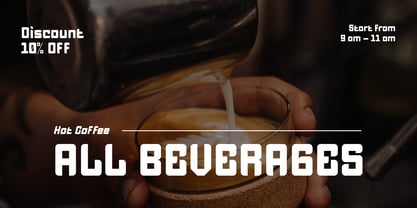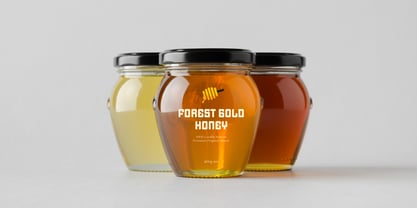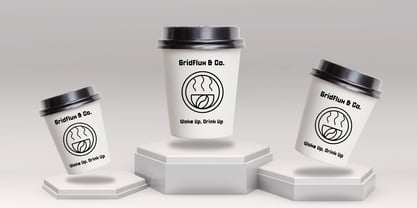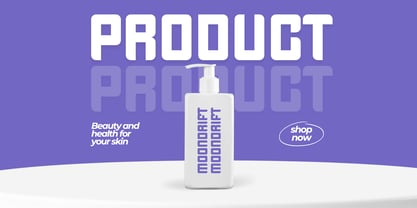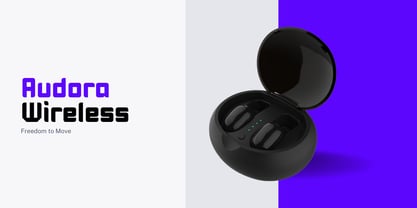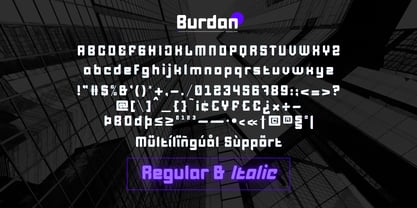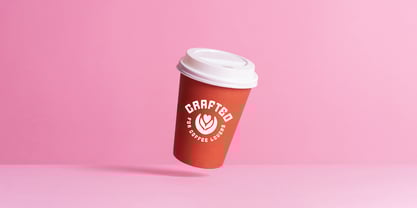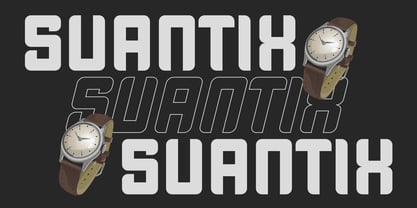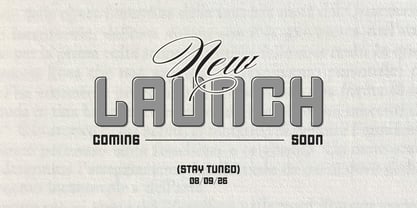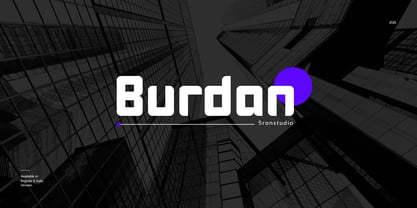
Burdan
von Sronstudio
Die Schriftfamilie Burdan wurde von Muhamad Yusron Billah entworfen und von Sronstudio veröffentlicht. Burdan enthält 2 Stile und Familienpaketoptionen.
Burdan is a modern logo font crafted for sleek, professional, and stylish branding. With clean lines, bold geometry, and a minimalist design approach, Burdan is perfect for logos, headlines, packaging, and editorial layouts. Its strong presence and contemporary aesthetic make it an ideal choice for businesses, fashion labels, tech brands, and creative projects that aim for a refined and memorable look.
- Regular & Italic styles
- Uppercase & lowercase characters
- Numerals & punctuation
- Multilingual support